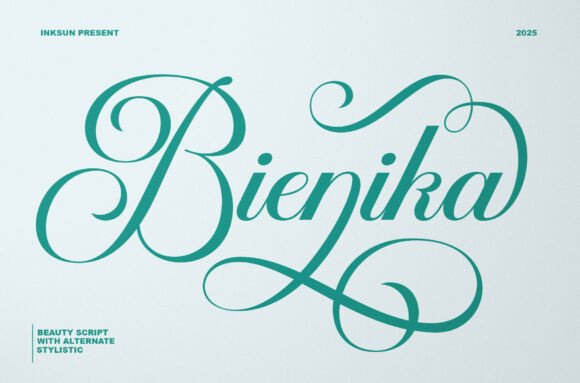
The Enchanting Beauty of Bienika Font: A Designer’s Delight
I still remember the time I was working on a project for a luxury brand, and I was struggling to find the perfect font to convey their high-end aesthetic. The client wanted something that exuded elegance, sophistication, and a touch of artistic flair. That’s when I stumbled upon Bienika Font, and it was love at first sight! 💫
Bienika is an enchanting beauty script typeface that masterfully combines fluid, calligraphic strokes with a modern, artistic flair. Defined by its graceful curves and high-contrast lines, this font exudes a sense of timeless elegance and sophisticated charm.
What I Love About Bienika Font
Here are some things that I absolutely adore about Bienika Font:
- ✨ Elegant and sophisticated design
- ✅ High-contrast lines and fluid strokes
- ✅ Alternate stylistics for customized typographic layouts
- ✅ Multilingual support
- ✅ Functional features like uppercase, lowercase, numerals, and more
While Bienika Font is an amazing addition to any design project, there are a few quirks to consider:
- 🤔 Some users may find the font a bit challenging to read in smaller sizes
- ⚠️ Limited use of font in body text, as it’s more suited for headlines and decorative elements
Bienika Font comes with a range of OpenType features, including:
- Stylistic alternates for customized typographic layouts
- Swashes and flourishes for added elegance
- Glyphs for multilingual support
The Story Behind Bienika Font
Bienika Font was designed with the intention of creating a beautiful, elegant script font that would evoke a sense of timeless sophistication. The designer drew inspiration from traditional calligraphy and modern artistic trends to create a unique and captivating font.
Q: Is Bienika Font suitable for body text?
A: While Bienika Font is beautiful, it’s more suited for headlines and decorative elements. For body text, you may want to consider a more legible font.